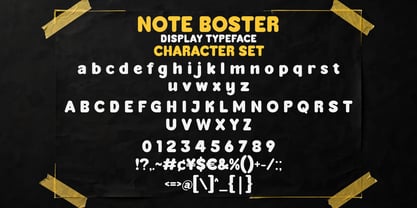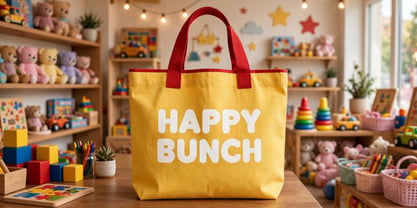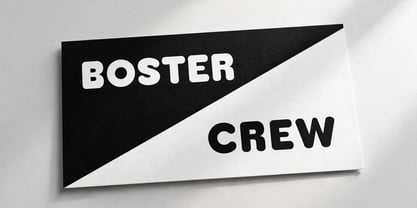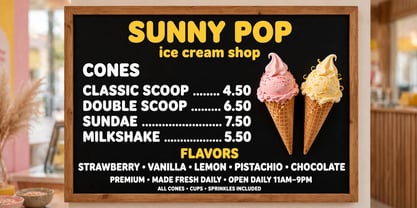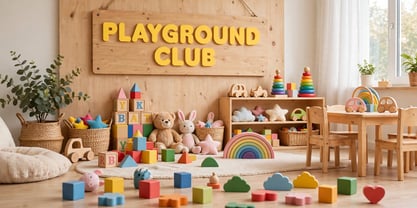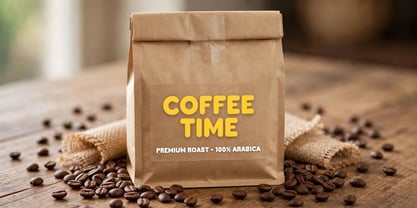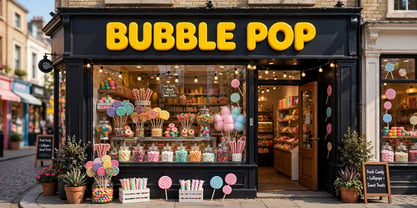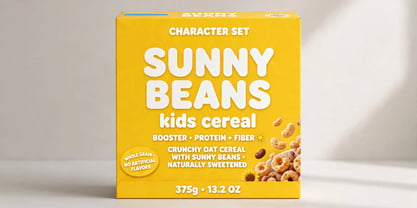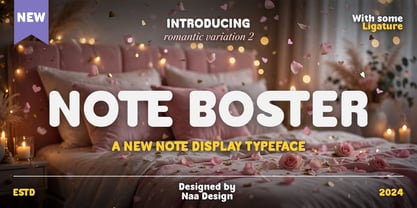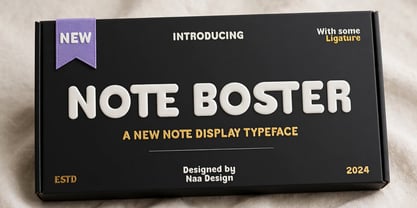
Note Boster
by Naatypo
The Note Boster Font Family was designed by Kurnia Elis Setyorini and published by Naatypo. Note Boster contains 1 styles.
You can use the lowercase and uppercase in a word that will make your project more stunning. Letter "ST" can be changed to be a different style you can use on your design. And it's not just letter "ST" that can be change. This font have more ligature wichis you can use it.
Designers: Kurnia Elis Setyorini
Publisher: Naatypo
Foundry: Naatypo
Design Owner: Naatypo